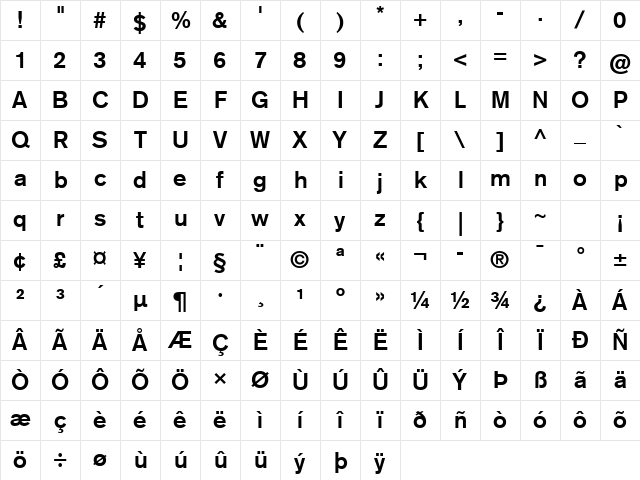
Basic Commercial LT Com Bold
Designer: Linotype Design Studio
Design Context for Basic Commercial LT Com
Basic Commercial LT Com is a composed and adaptable typeface that performs quietly and consistently across a wide range of design contexts. Its bold stroke weight gives it real presence on the page.
Pro Tip: Use Basic Commercial LT Com in both headline and body roles to test its range before committing to a single application.